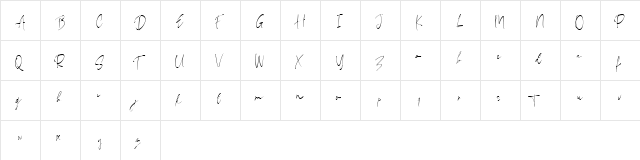
Mackle Script DEMO Regular
| Foundry | Konstantine Studio |
| Designer | Konstantine Studio |
Design Context for Mackle Script DEMO Typeface
Mackle Script DEMO brings a calligraphic fluidity to the page — its connecting strokes and expressive curves give it an unmistakably human quality.